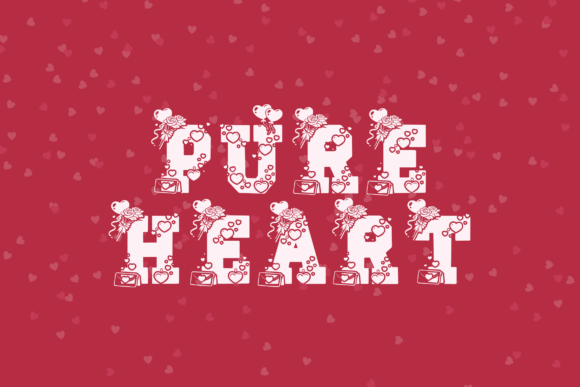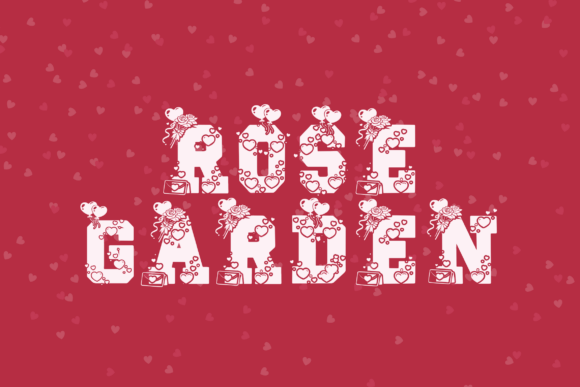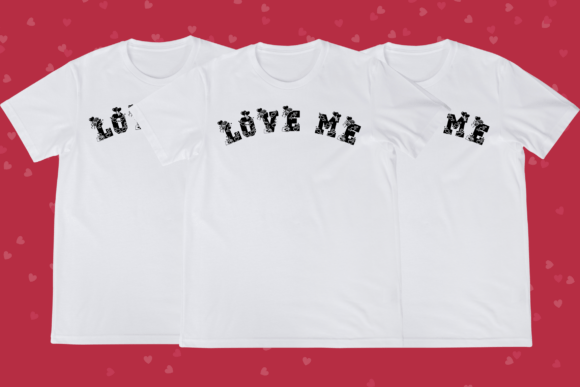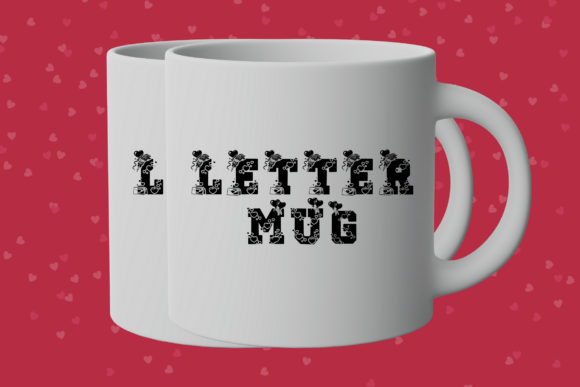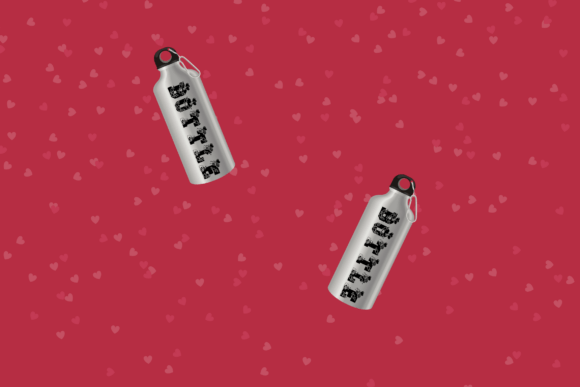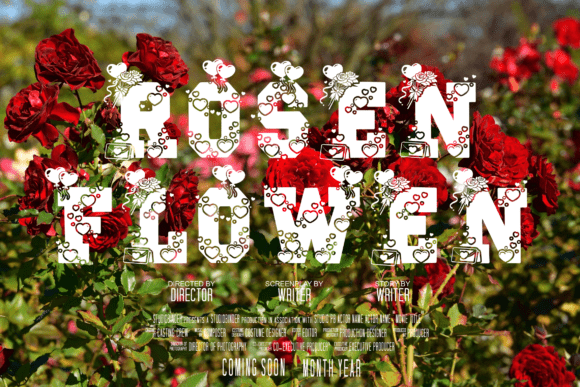
Meet Blockton Valentine, the Bold Valentine Decorative Font
Are you looking for a font that can add a bold and playful touch to your Valentine’s Day designs? Look no further than Blockton Valentine, a decorative font that is sure to make your creations stand out. With its strong block letterforms and Valentine twist, this font is perfect for designers and crafters who want to add a fun and eye-catching element to their work.
What is Blockton Valentine Font?
Blockton Valentine is a bold display font that is built with chunky and well-balanced shapes, making it perfect for both small Valentine items and large headlines. The font has a confident and fun feel to it, while still staying clean and readable. This makes it an ideal choice for a variety of design projects, including Valentine cards, gift packaging, posters, apparel, stickers, mugs, classroom decor, and seasonal branding.
Why Choose Blockton Valentine Font?
So, why should you choose Blockton Valentine font for your Valentine’s Day designs? Here are just a few reasons:
- Clean and Crisp Printing: The thick letter shapes cut and print cleanly for vinyl, stickers, laser projects, and screen printing, making it perfect for crafters and designers who want to create high-quality designs.
- Fast and Efficient Design Process: The block structure of the font is simple and predictable, which means you can quickly and easily create layouts that look great.
- Standout Style: The bold Valentine style of Blockton Valentine font stands out from delicate script fonts, helping your designs to grab attention and make a lasting impression.
Blockton Valentine font is perfect for designers and crafters who want to create bold and eye-catching Valentine’s Day designs. Whether you’re creating cards, gift tags, posters, or other projects, this font is sure to add a fun and playful touch to your work.
Some popular uses for Blockton Valentine font include:
- Valentine cards and gift tags
- Apparel and accessories
- Stickers and decals
- Mugs and other ceramics
- Classroom decor and seasonal branding
Tips for Using Blockton Valentine Font
Here are a few tips for getting the most out of Blockton Valentine font:
- Experiment with Different Sizes: Blockton Valentine font looks great in both small and large sizes, so don’t be afraid to experiment with different sizes to find the one that works best for your design.
- Pair with Other Fonts: Blockton Valentine font pairs well with a variety of other fonts, so try pairing it with some of your favorite fonts to create a unique and interesting design.
- Use it for Headlines and Titles: The bold and playful style of Blockton Valentine font makes it perfect for headlines and titles, so try using it to add a fun and eye-catching element to your designs.
If you’re looking for a bold and playful font to add to your Valentine’s Day designs, Blockton Valentine font is a great choice. With its strong block letterforms and Valentine twist, this font is sure to make your creations stand out. Whether you’re a designer or crafter, Blockton Valentine font is a versatile and easy-to-use font that can help you to create high-quality designs that grab attention and make a lasting impression.